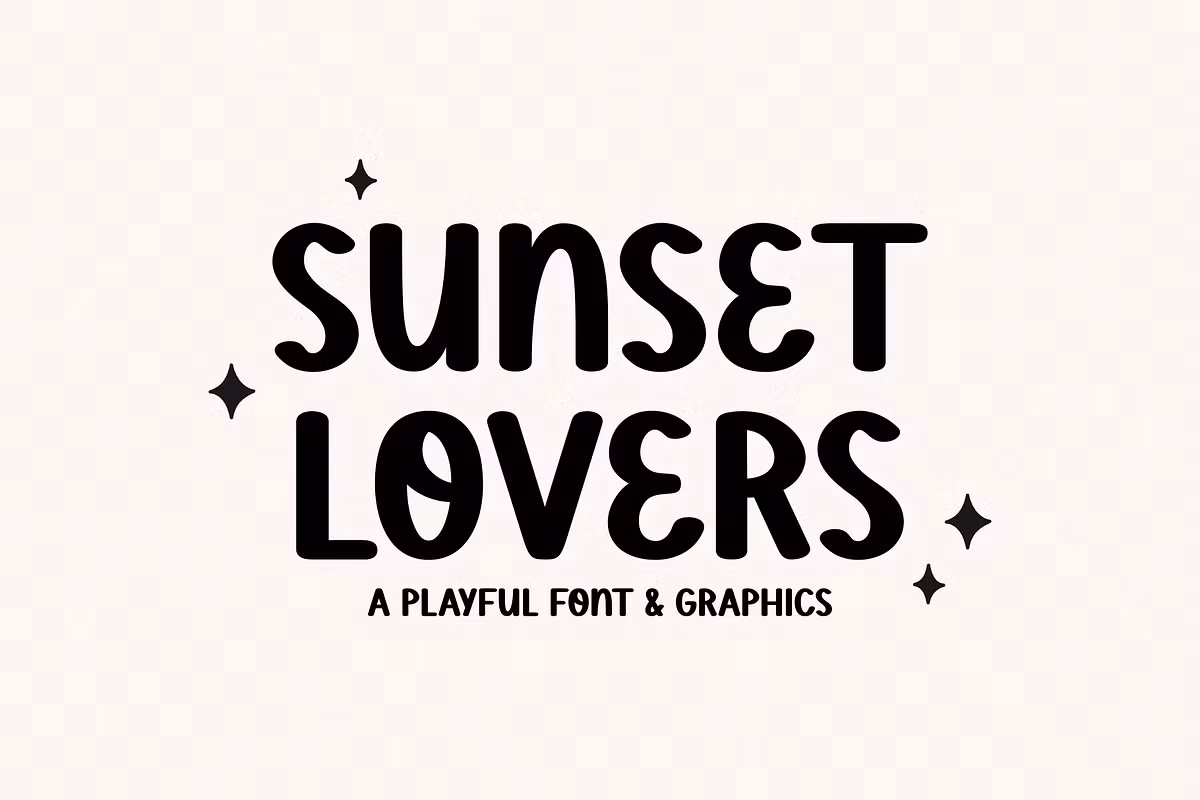
You must purchase this font for commercial use. However, you can download Sunset Lovers – Playful Font Free Download for testing purposes. Sunset Lovers is a fun and lively playful font that brings joy and energy to your designs. With its whimsical curves, bouncy letterforms, and lighthearted style, it is perfect for creating vibrant logos, posters, invitations, children's designs, and social media content.
The font’s casual and quirky design adds a unique and inviting charm, making it ideal for projects that need a cheerful, informal vibe. Whether you're designing for a fun event, a youthful brand, or crafting an engaging greeting card, Sunset Lovers adds personality and flair to your typography.